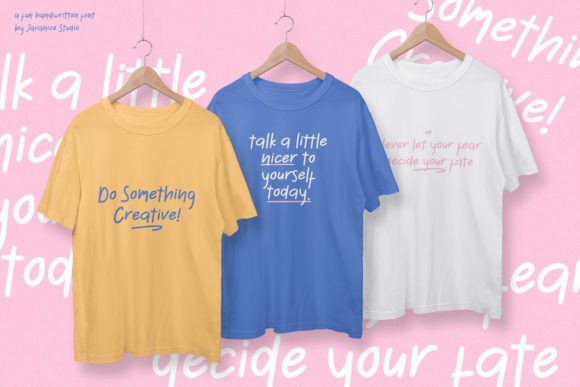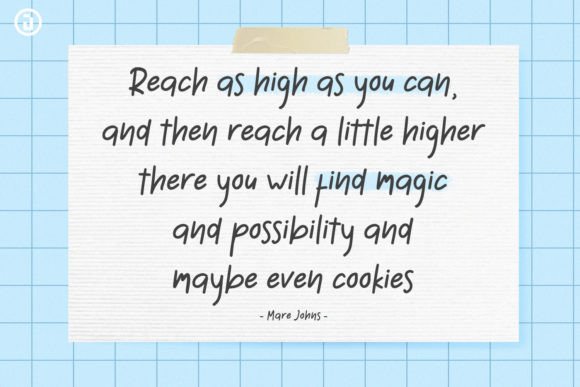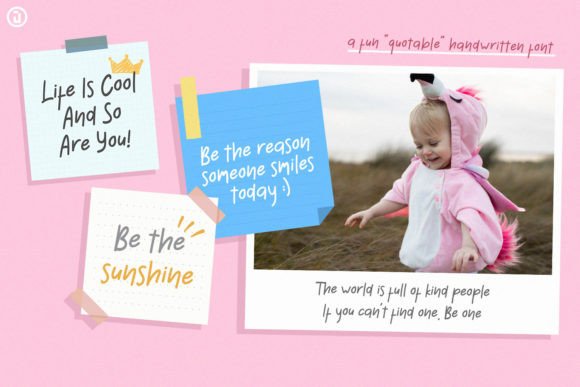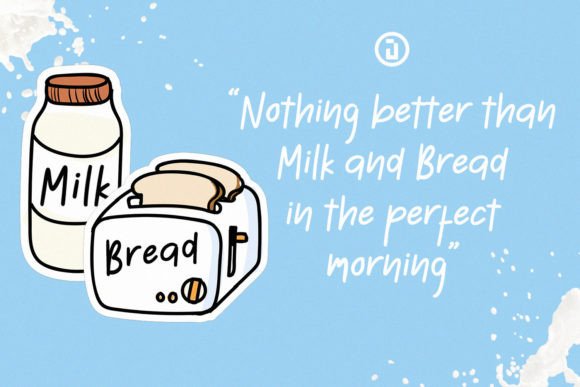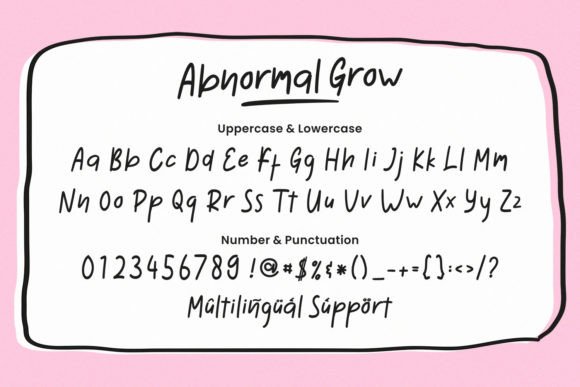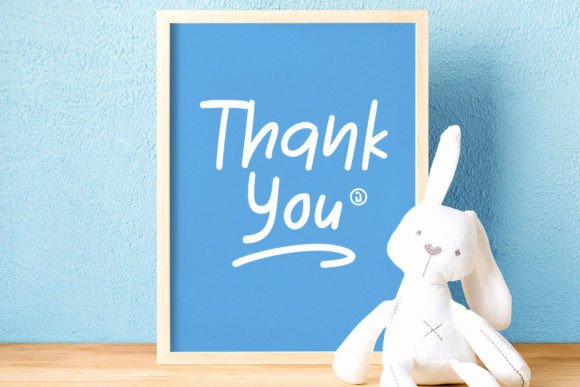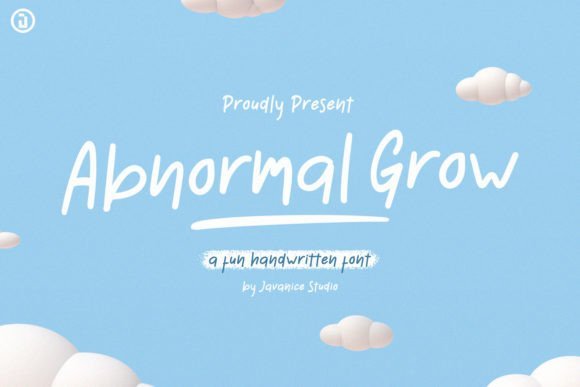
The Perfect Font for Your Unique Brand
You know that moment when you’re brainstorming ideas for your next design project, and suddenly, a spark of creativity strikes? The words flow effortlessly, and you can envision the perfect font to bring your concept to life. For designers like you, finding the right font can make all the difference between a good design and an exceptional one.
That’s where the Abnormal Grow Font comes in – a fun, handwritten font designed to add a touch of personality to your branding projects. Whether you’re creating labels, magazines, or greeting cards, this font is perfect for making your designs stand out. With its unique charm, the Abnormal Grow Font is a valuable addition to any designer’s toolkit.
Abnormal Grow Font Key Features
- Unique Character Set: Abnormal Grow Font features a unique and extensive character set, including a wide range of Latin, Cyrillic, and Greek characters, making it ideal for multilingual designs.
- Grow and Stretch Capabilities: This font’s distinctive feature is its ability to grow and stretch, allowing designers to create dynamic and visually striking effects in their designs.
- Highly Customizable: Abnormal Grow Font offers advanced features for customization, including ligatures, swashes, and alternate characters, giving designers the freedom to create unique and personalized designs.
- Scalability: Designed to be highly scalable, Abnormal Grow Font maintains its quality and legibility even at extreme font sizes, making it suitable for use in various applications, from small text to large headings.
Abnormal Grow Font Review
Overall, I’m impressed with the Abnormal Grow Font. Here are the things that work well: ✨
- Unique design: The font’s irregular lines and unpredictable shapes make it stand out from more traditional fonts.
- High customization options: You can easily adjust the font’s size, color, and spacing to fit your needs.
- Wide compatibility: The font works well across different devices, browsers, and operating systems.
However, there are some limitations: ⚠️
- Readability issues: The font’s unconventional design can make it difficult to read, especially for long blocks of text.
- Lack of clarity: Some letters and symbols can be easily confused with one another, which may lead to misunderstandings.
- Not suitable for all content: The font is best suited for headings, titles, and short quotes, as it can be overwhelming for large amounts of text.
Overall, I think the Abnormal Grow Font is a great choice for designers who want to add some visual interest to their projects. Just be sure to use it judiciously and pair it with a clear, readable font for body text.
Tips for Getting the Most Out of Abnormal Grow Font
Abnormal Grow Font is best used for creating eye-catching headlines or titles. It’s perfect for making a statement or drawing attention to a specific area of your design.
To get the most out of Abnormal Grow Font, experiment with different font sizes and styles to create a unique look.
Abnormal Grow Font is commonly used for:
Headlines and titles
Marketing materials
Branding and logos
Advertising and promotional materials